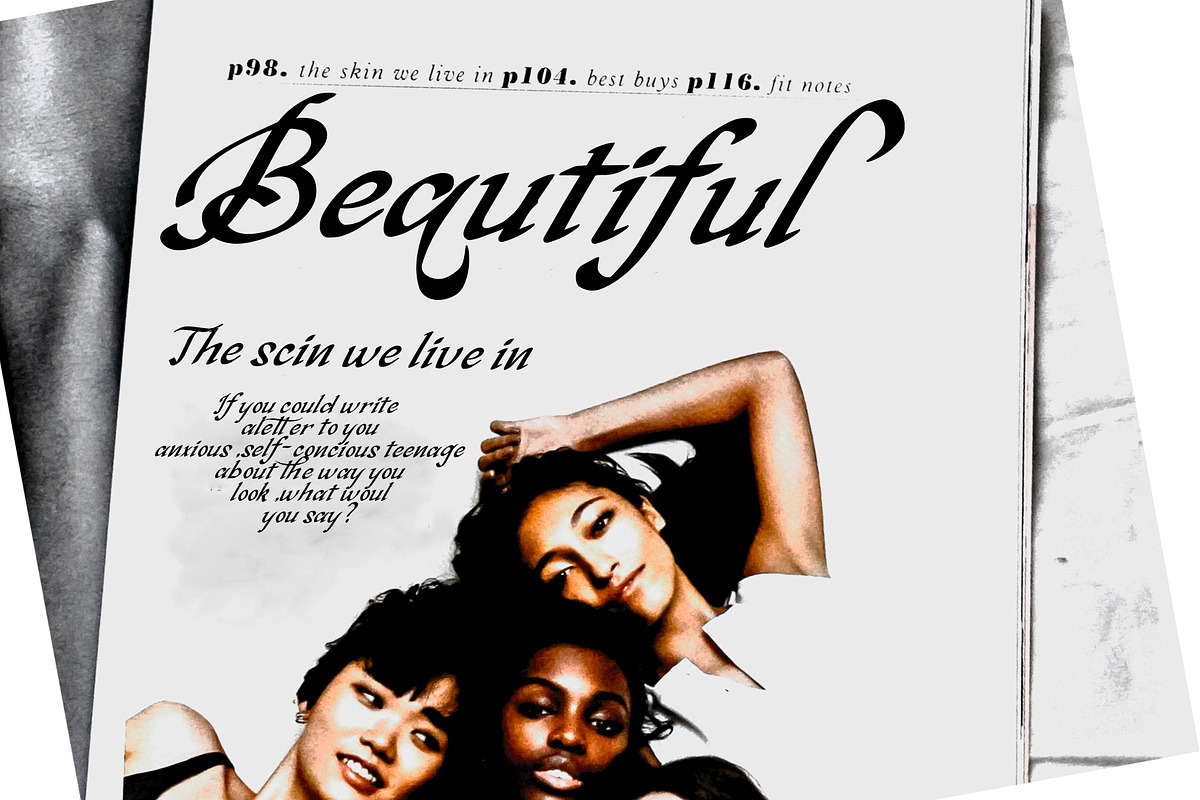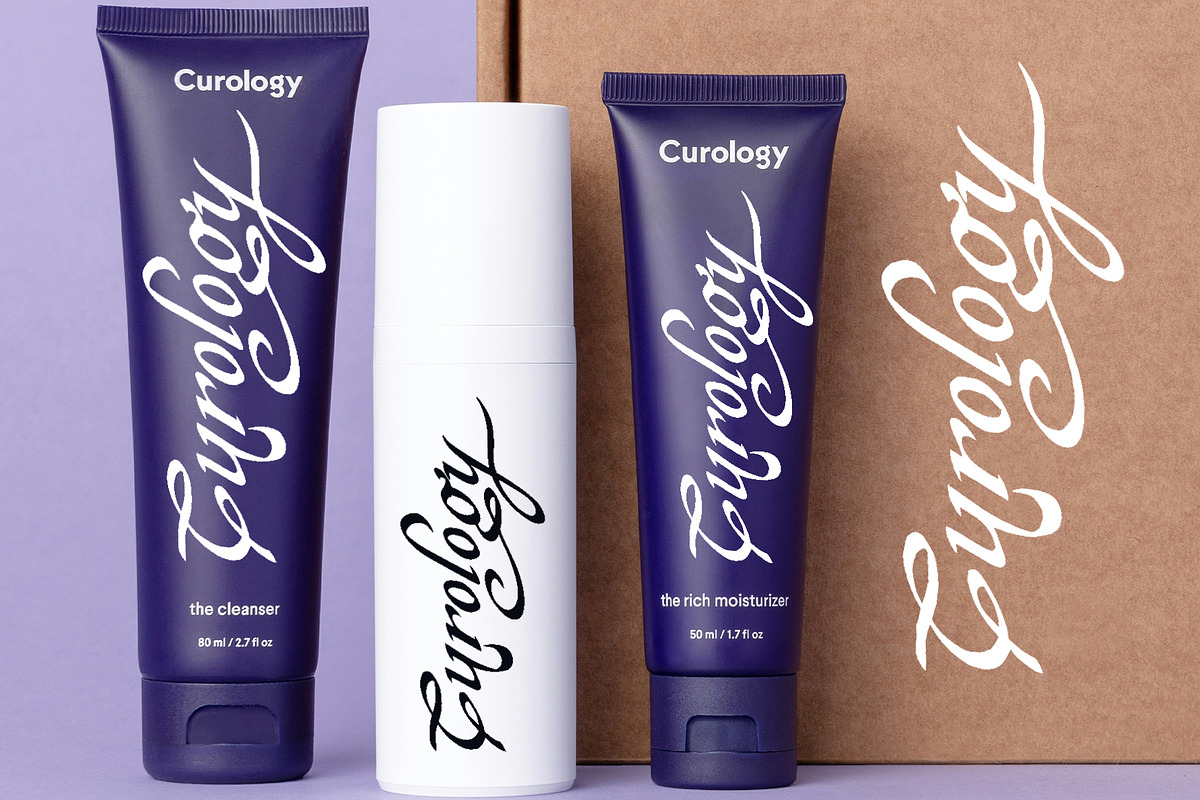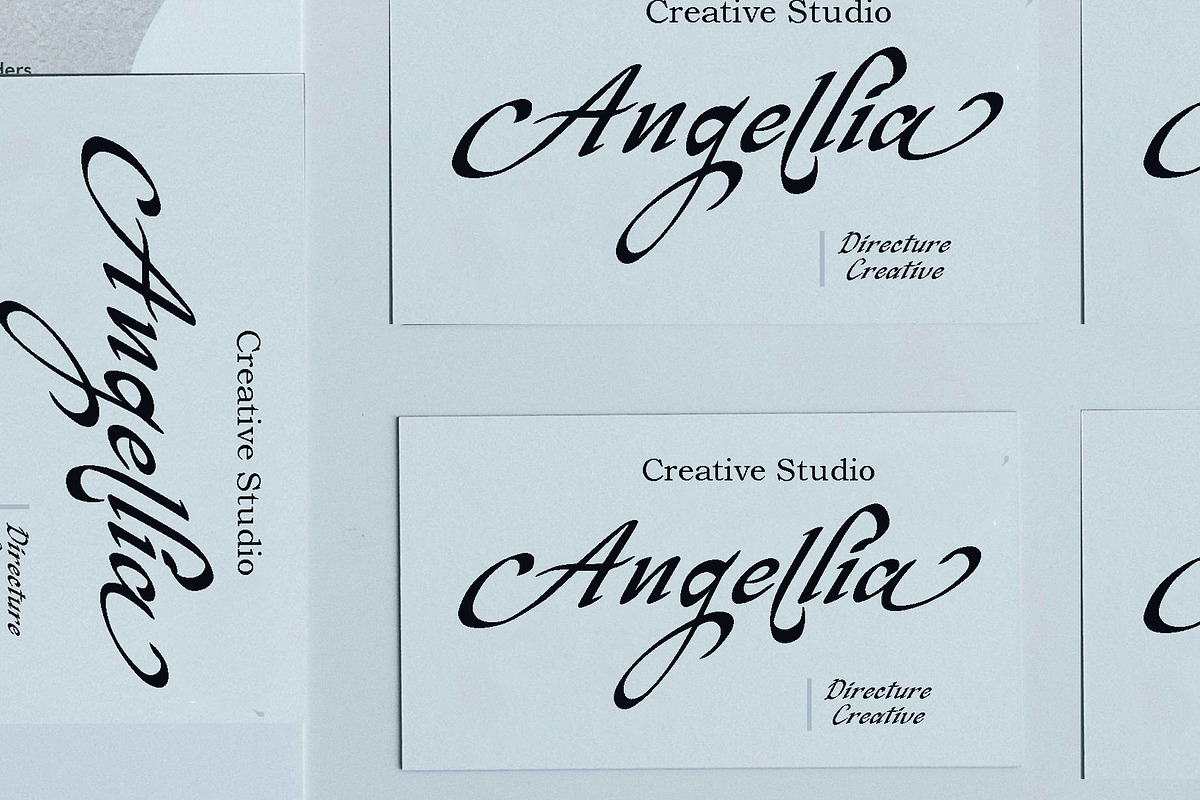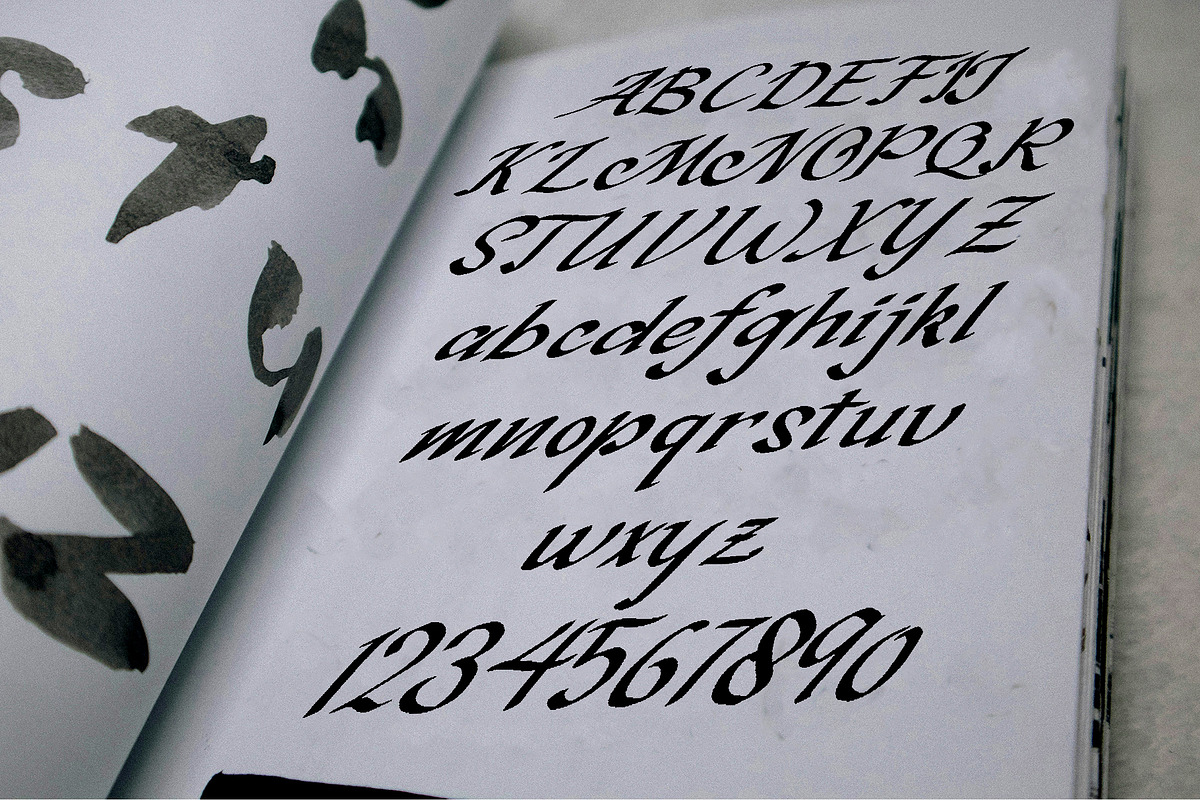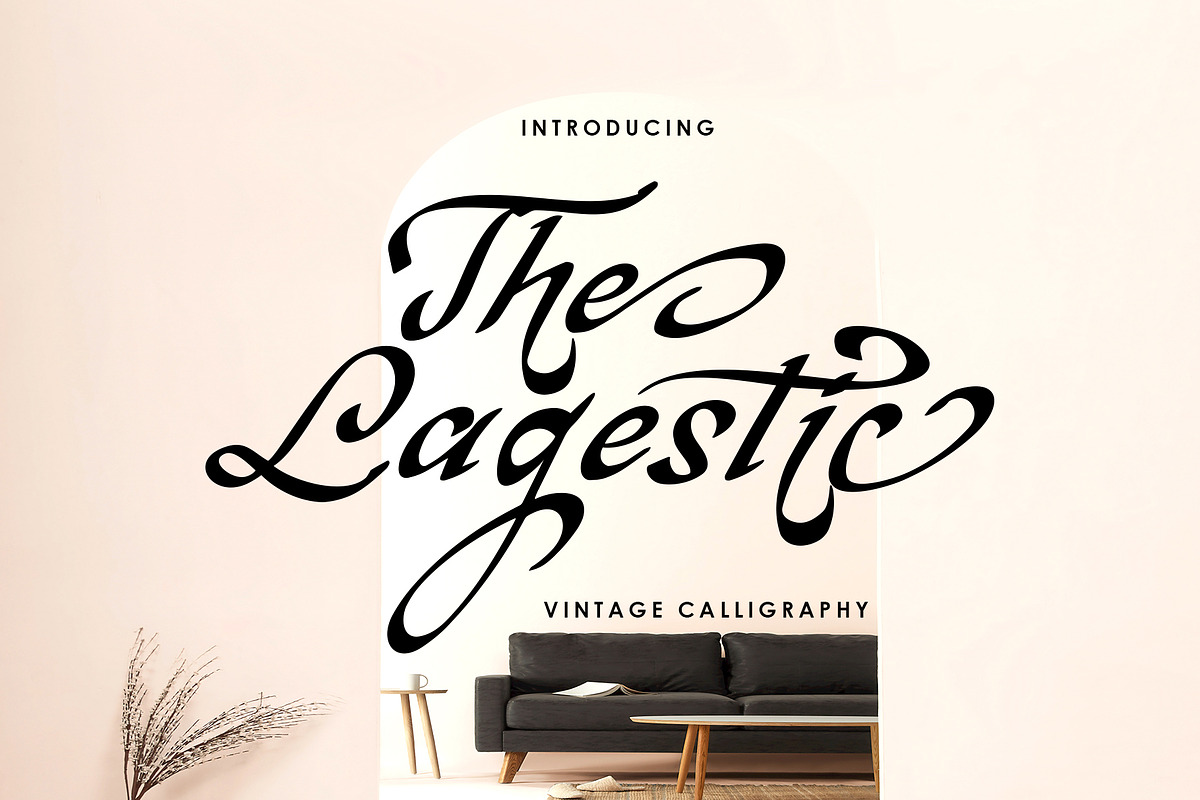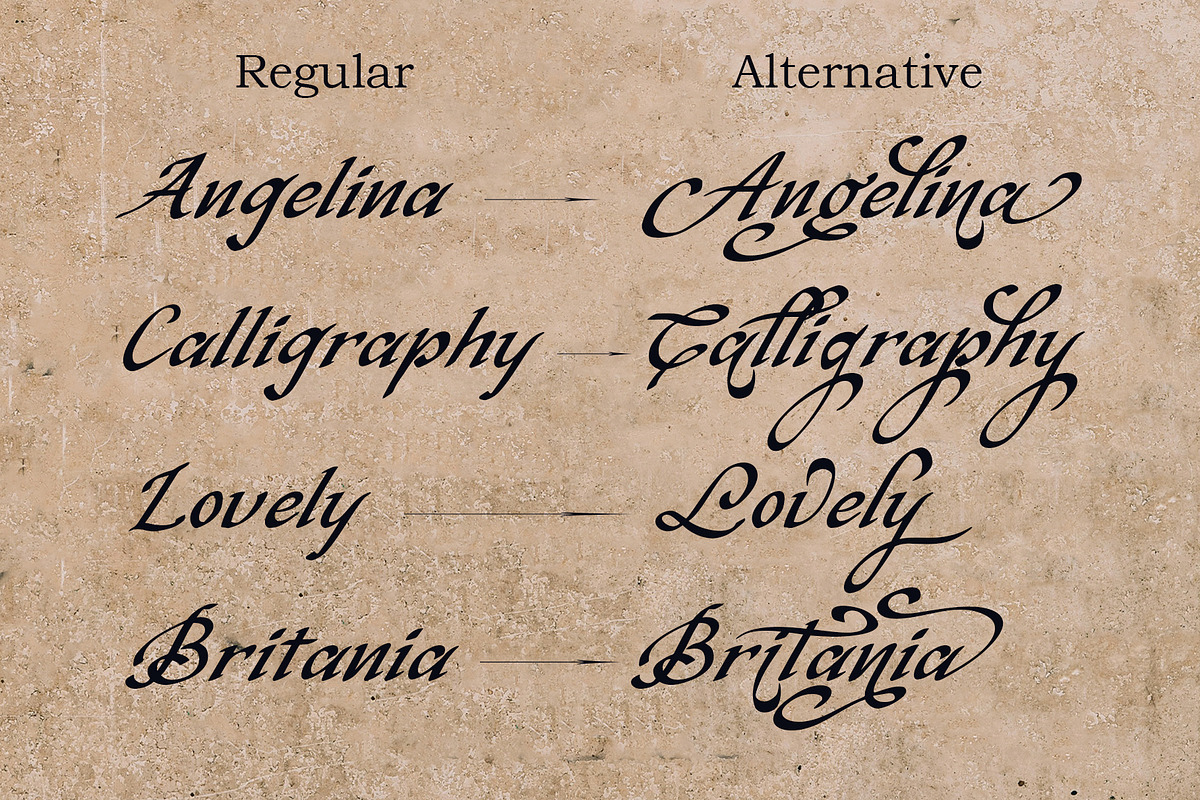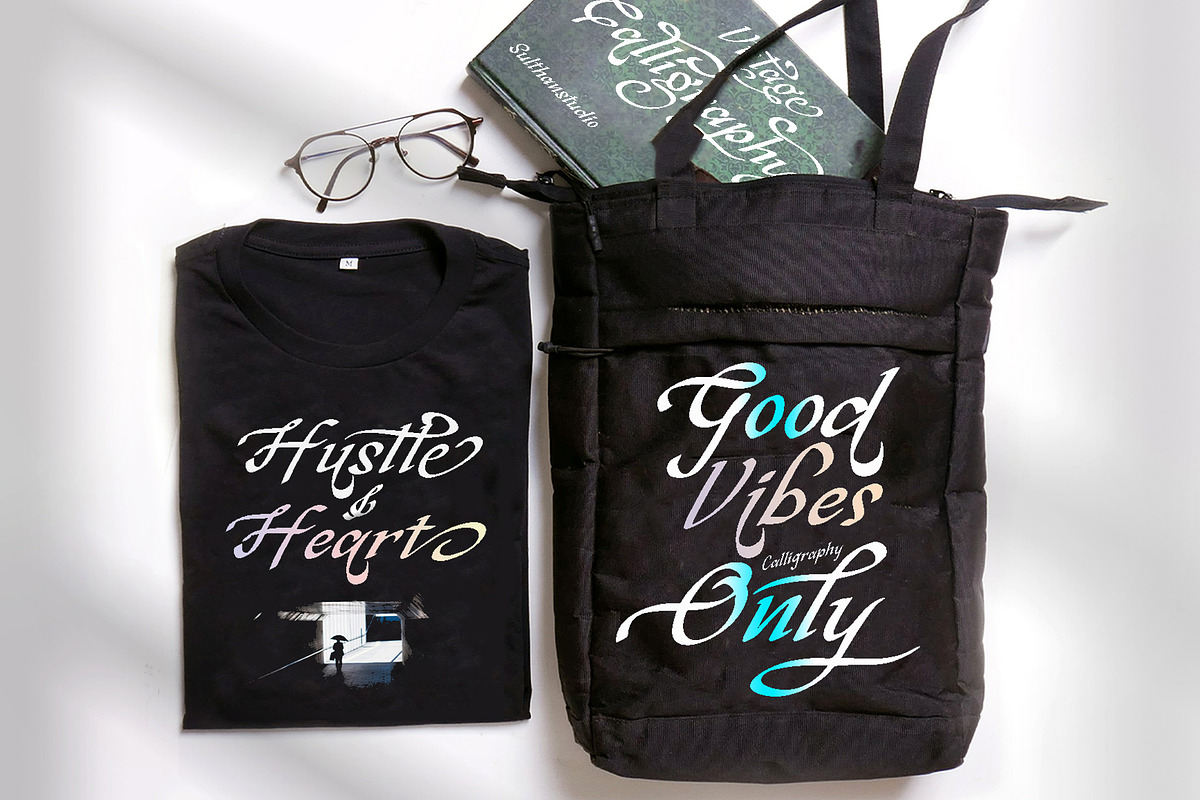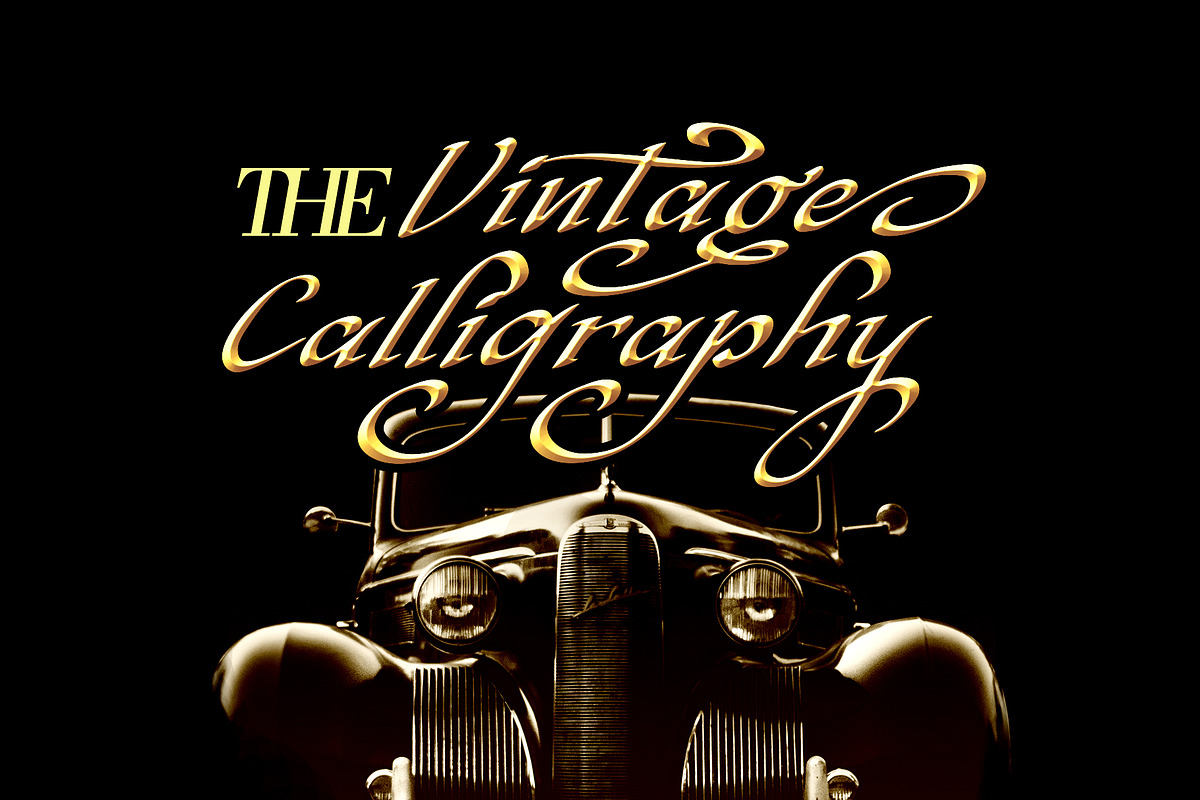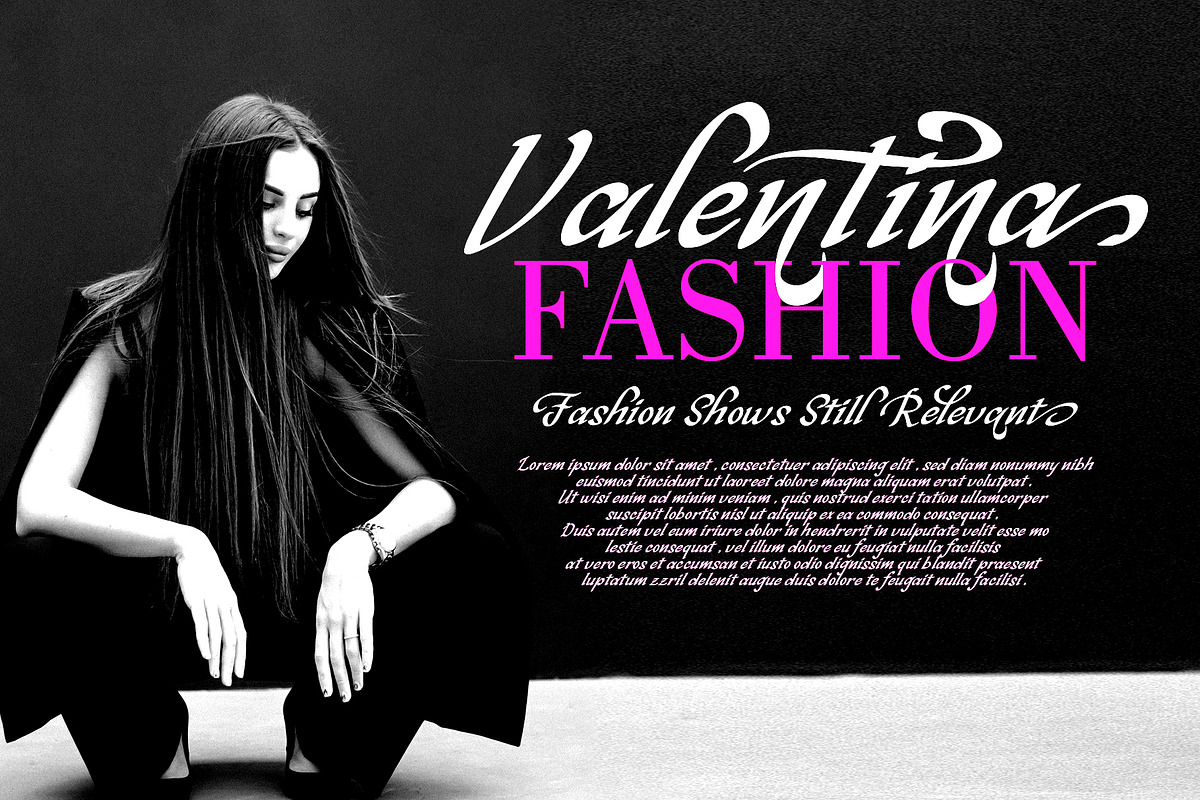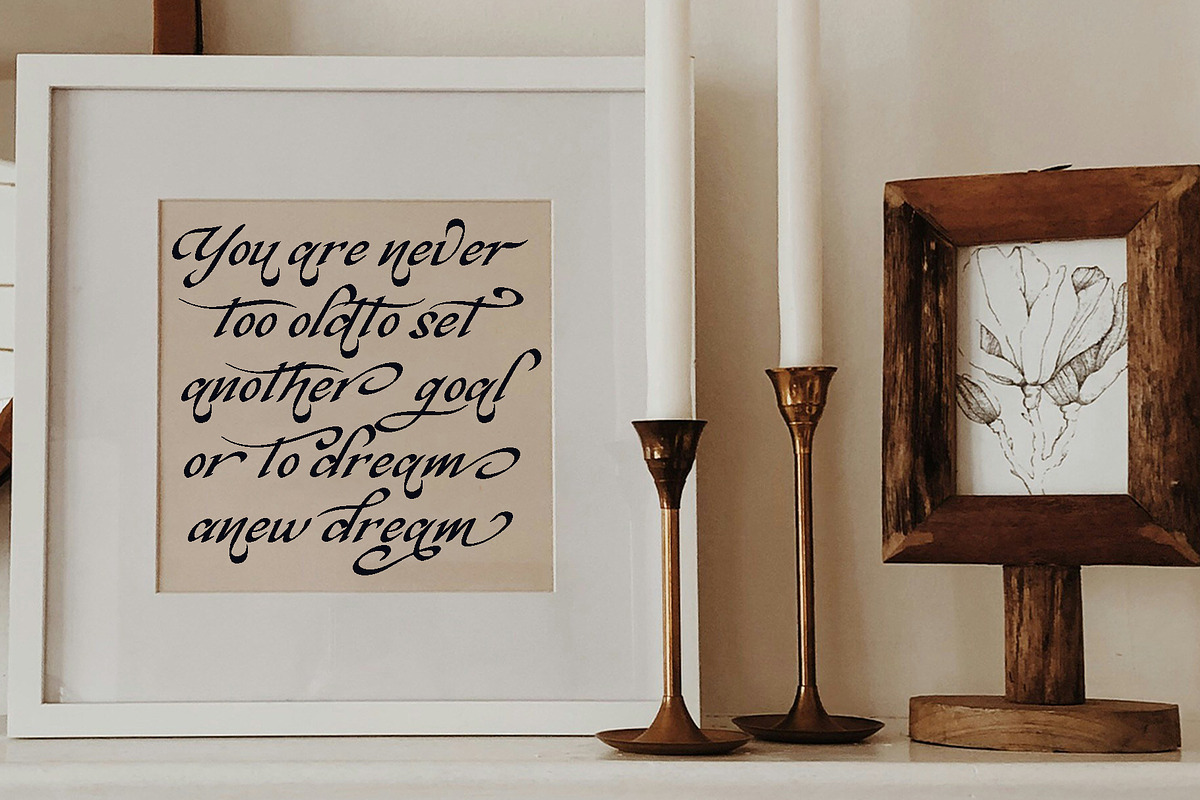
The Lagestic
The Lagestic is an amazing vintage calligraphy font, because I often work late at night to write this font, and feel a very warm feeling and imagine the beautiful times in the past, so this font was born with the name Elegant night. This vintage, energetic, classic, elegant and unique style font is written on paper using a flat calligraphy pen. This font is perfect for product labels, magazines, wedding invitations, event posters, business cards, branding designs, and much more can be done with this font so that your design gets a cool and luxurious classic style. The font is equipped with Uppercase lowercase letters, numbers punctuation, language support, alternative swashes uppercase and lowercase letters and also ligatures. The font has also been encoded PUA.